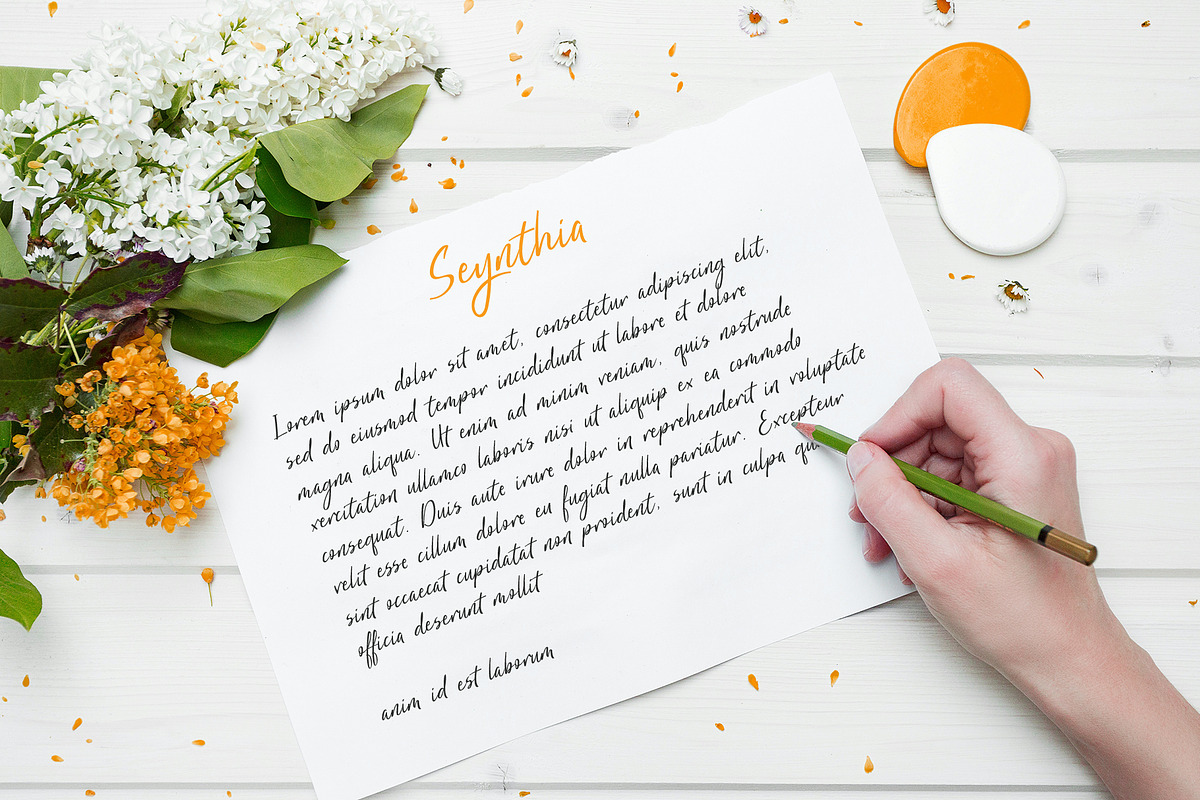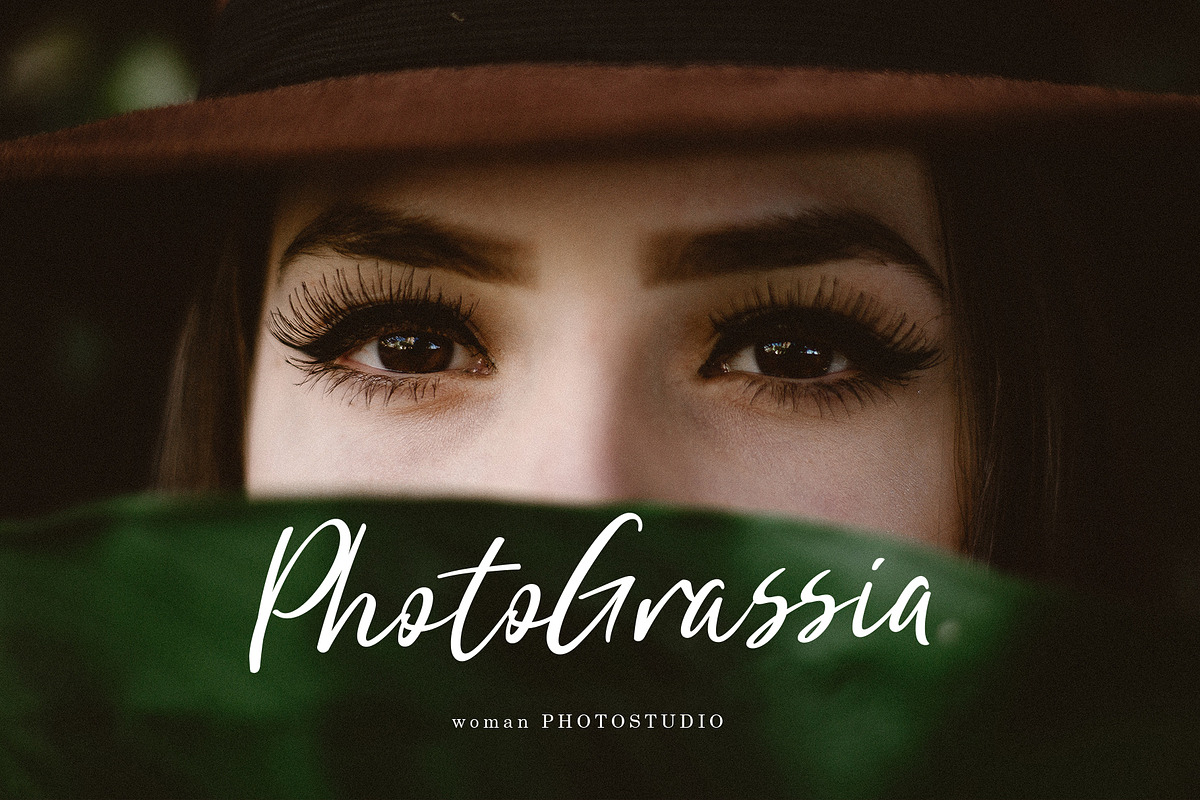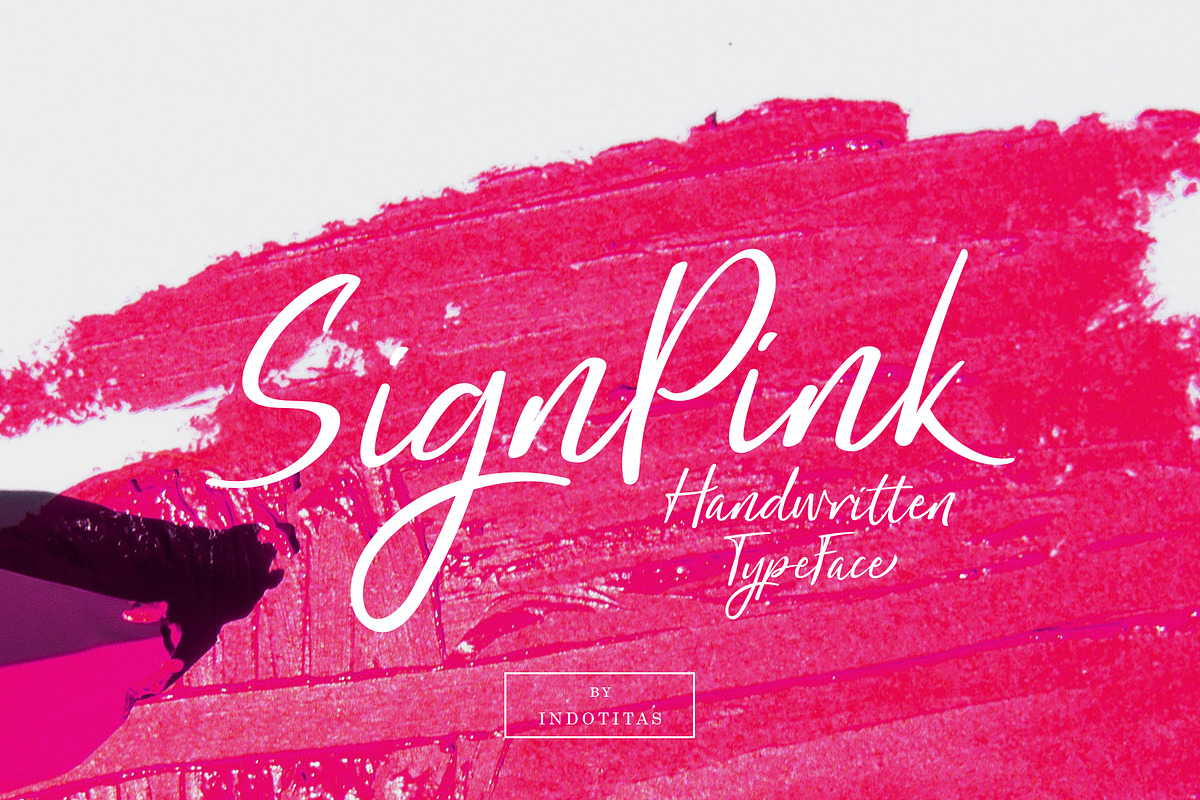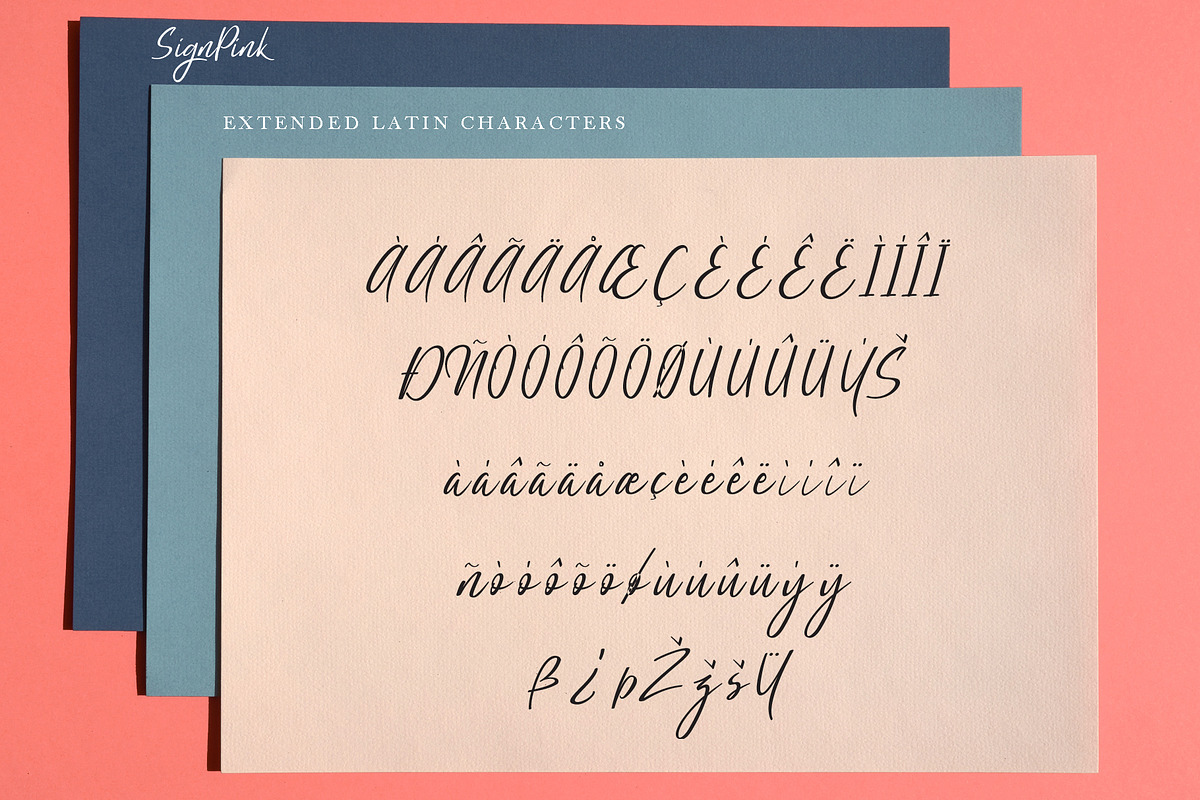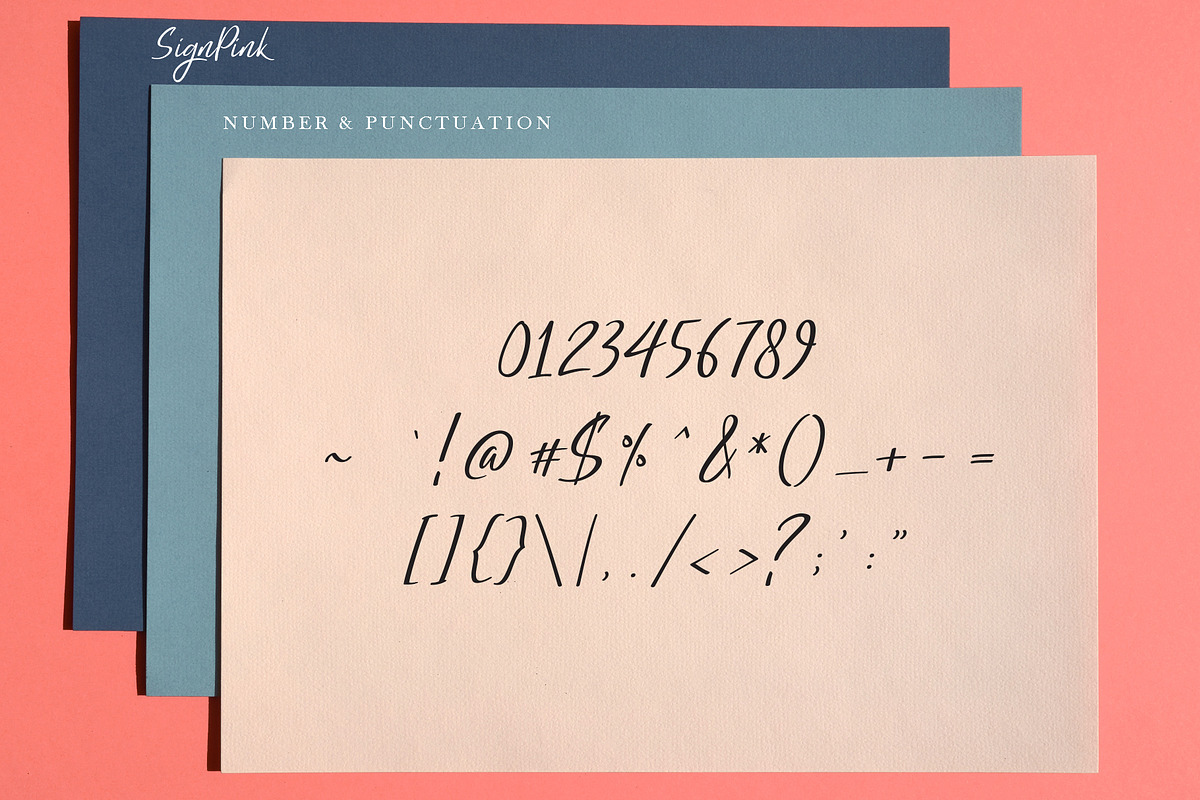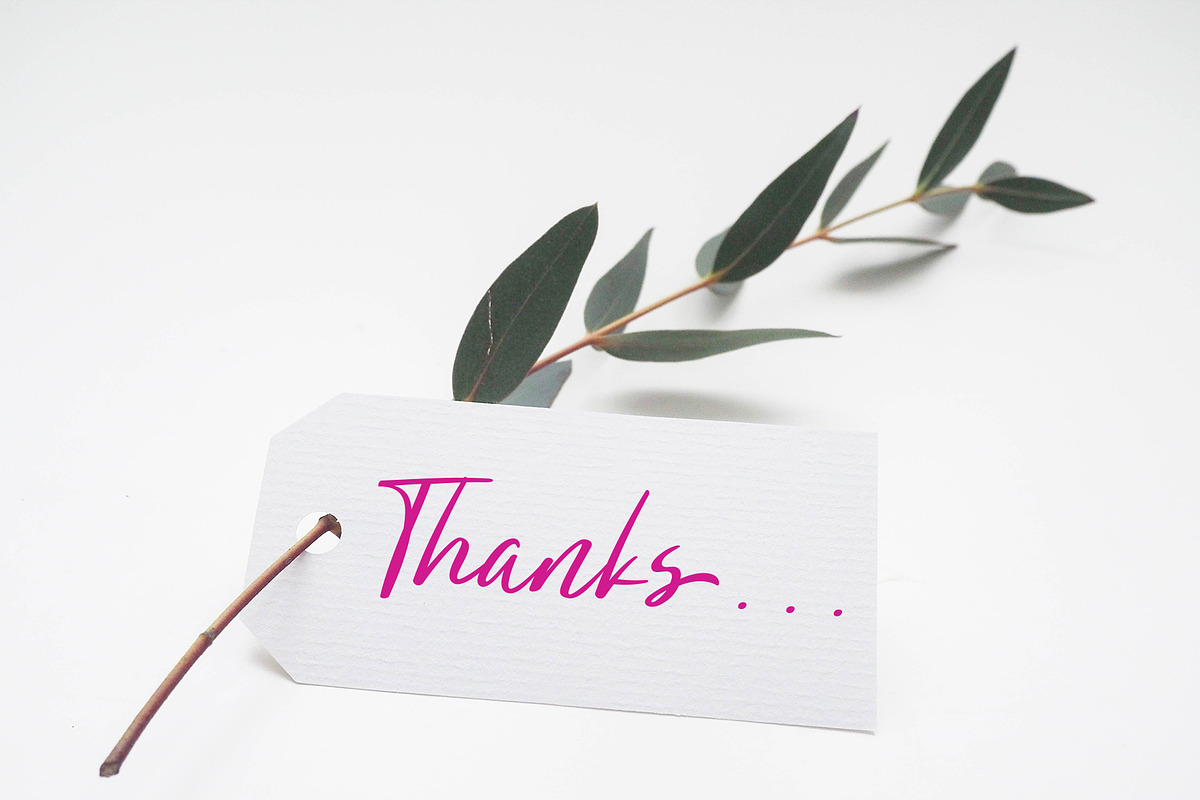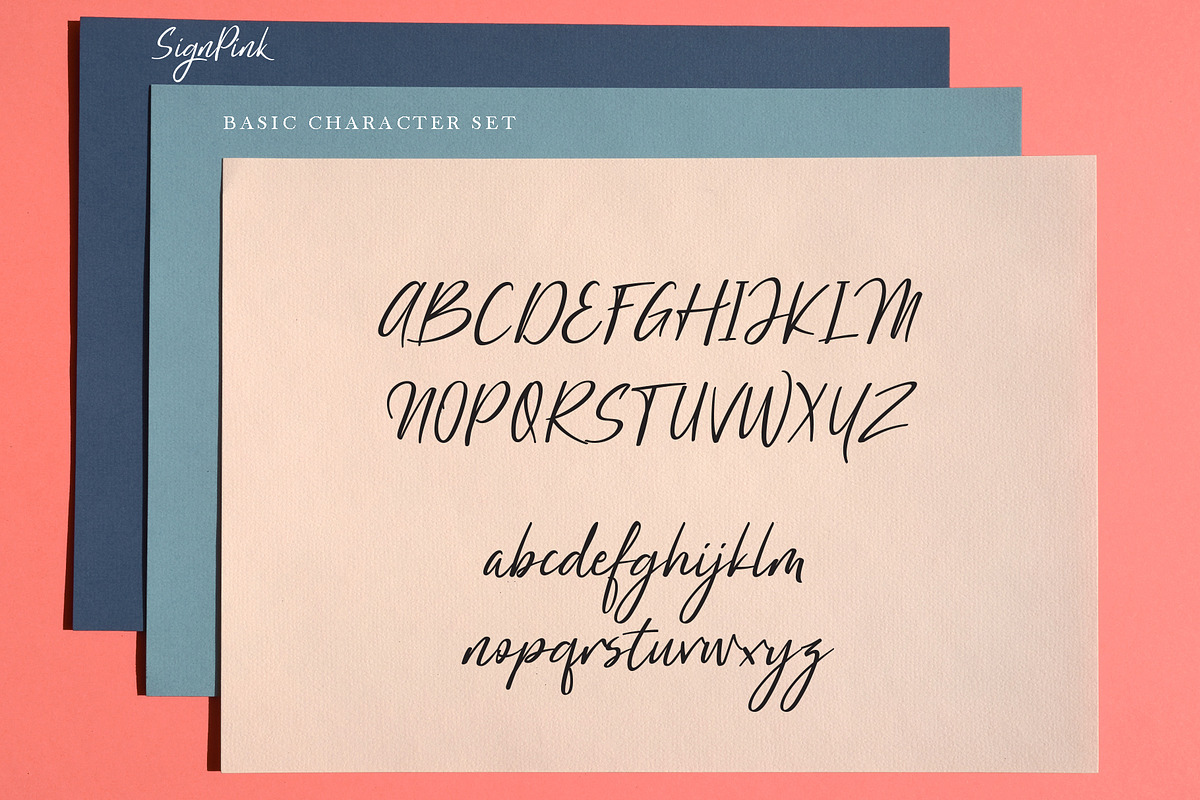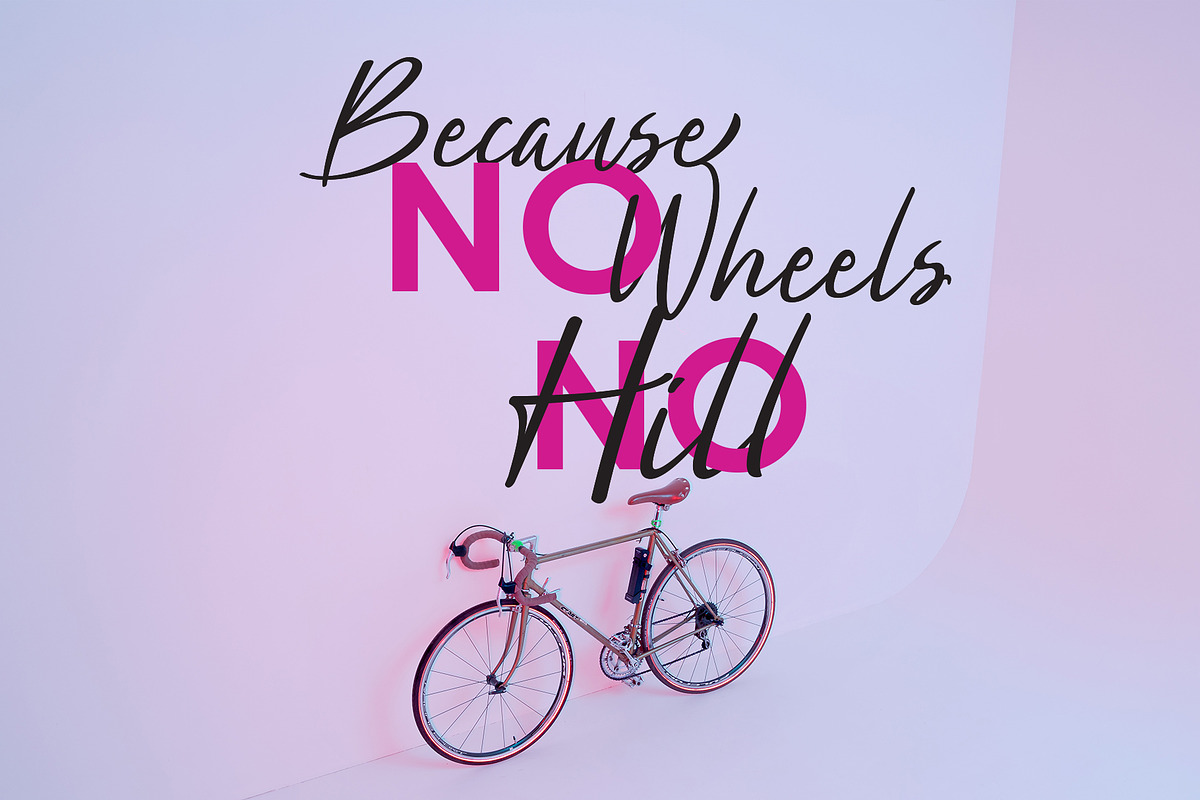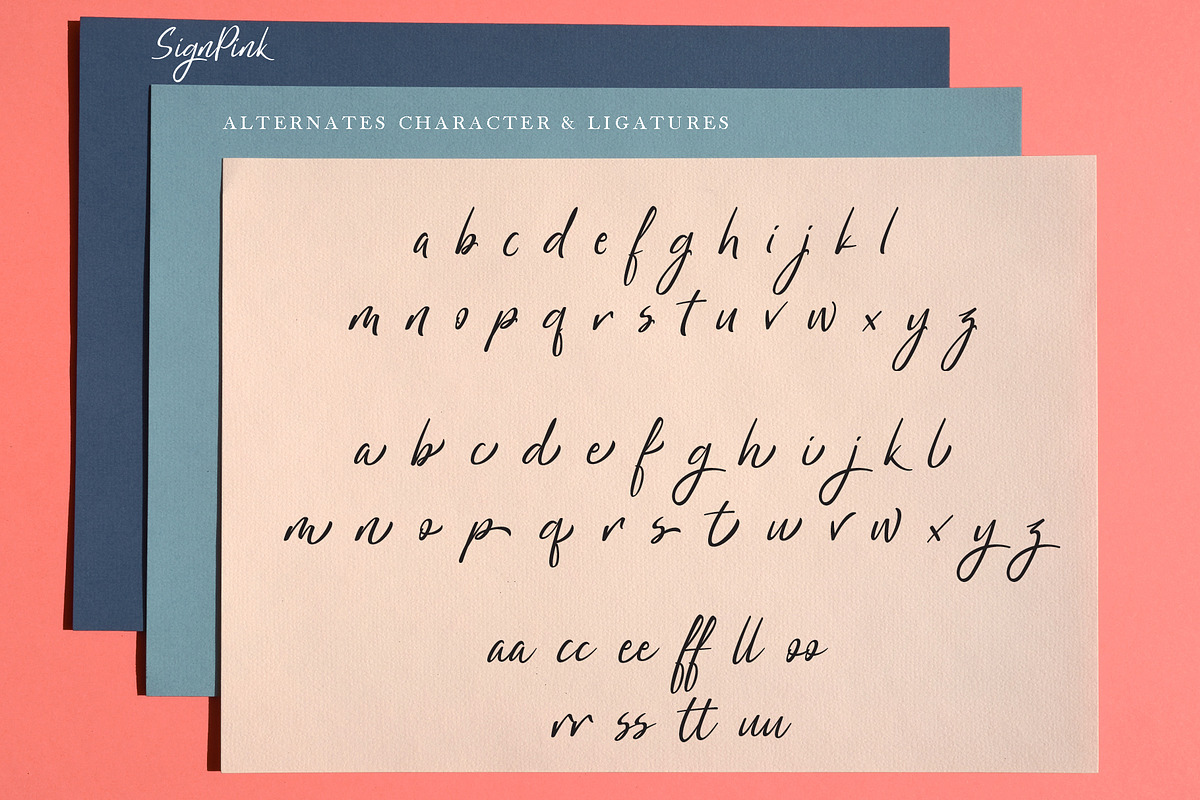
SignPink
Introducing of our new product SignPink Handwritten Typeface
Inspired by modern and stylish handwritten, perfect for many different project such as logos & branding, invitation, stationery, wedding designs, social media posts, advertisements, product packaging, product designs, label, photography, watermark
- Number & Punctuation
- 52 Alternates Character
- Extended Latin Character
- Supported with contextual alternates mode
- Opentype Feature
- Multingual Support